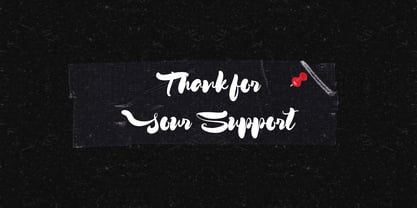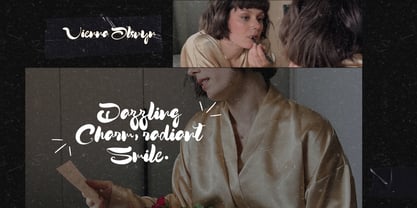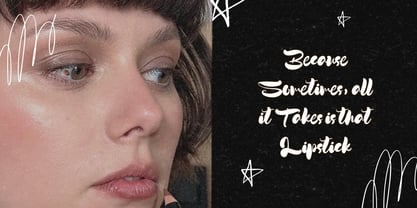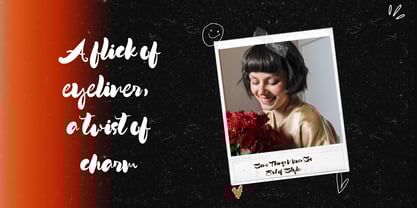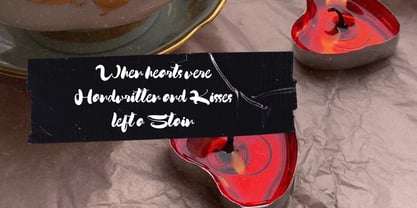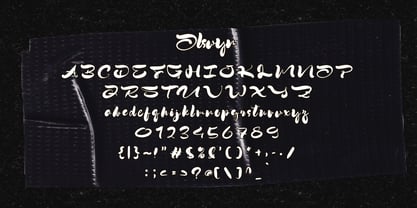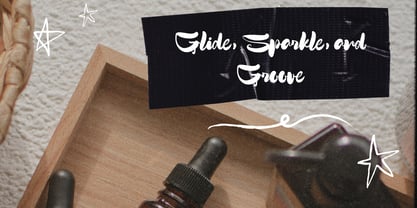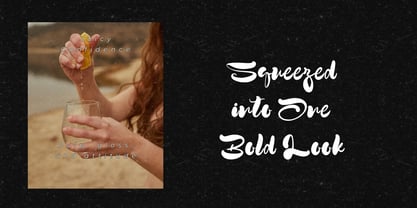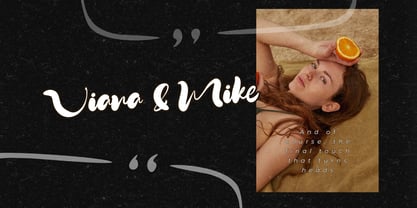
Olswyn
by Gatype
The Olswyn Font Family was designed by khaidir and published by Gatype. Olswyn contains 1 styles. More about this family
Introducing Olswyn – a stylish and classy script font that brings refined elegance to any design. Perfectly suited for logos, magazine headlines, social media graphics, or upscale branding, Olswyn delivers graceful curves with a modern touch.
This font includes beautifully crafted uppercase and lowercase characters, numbers, punctuation, and multilingual support — giving you the flexibility to create with confidence and charm.